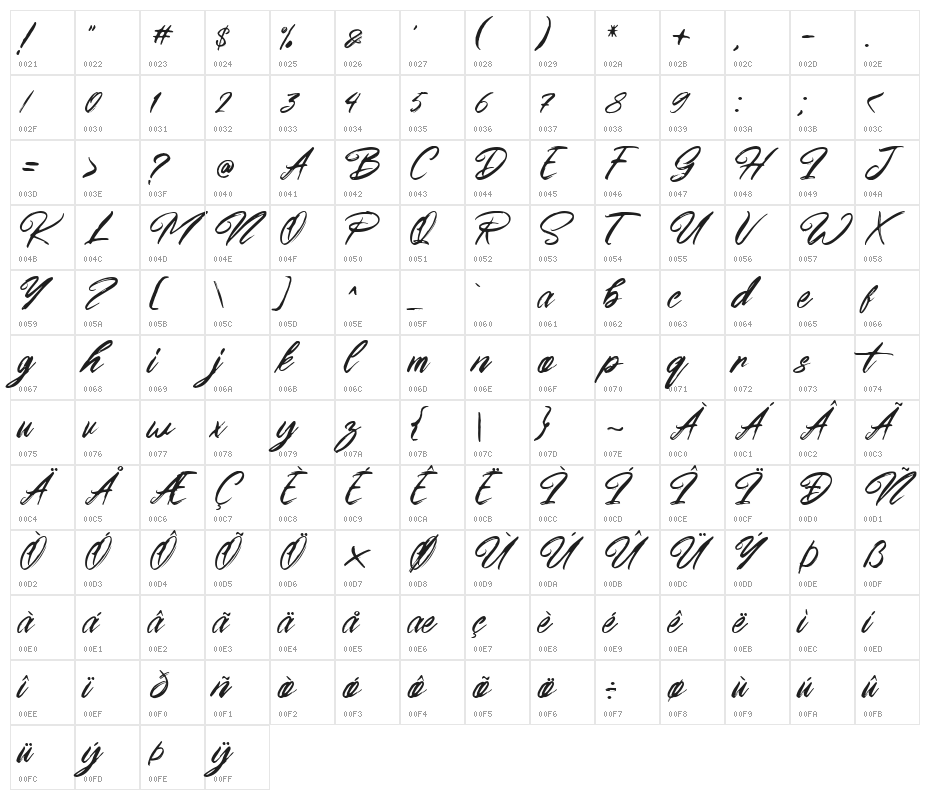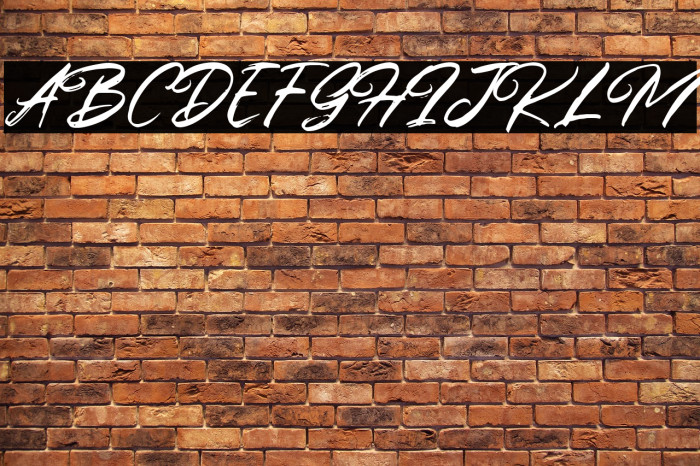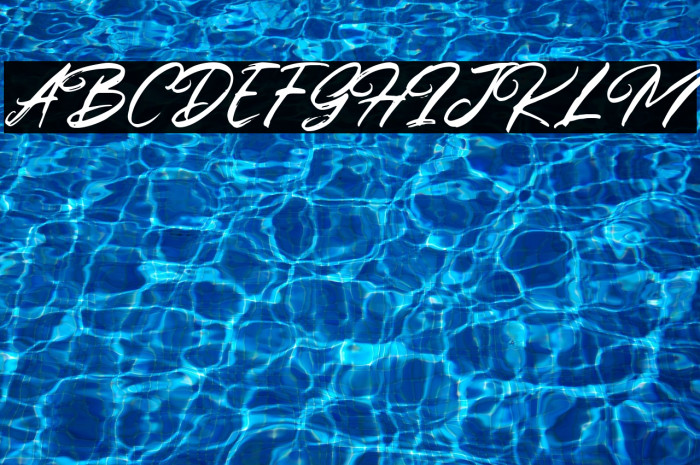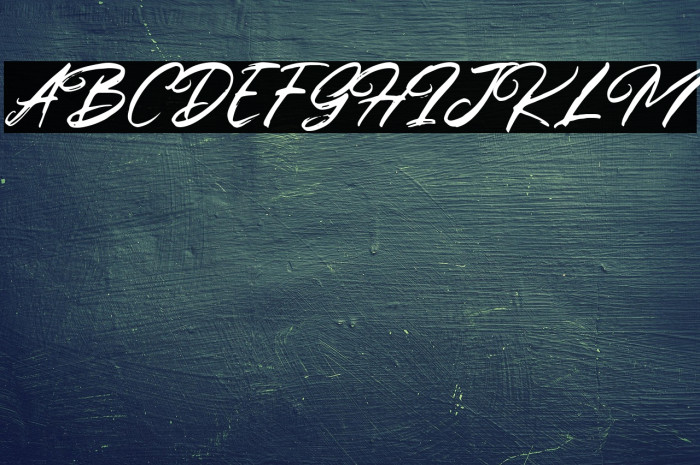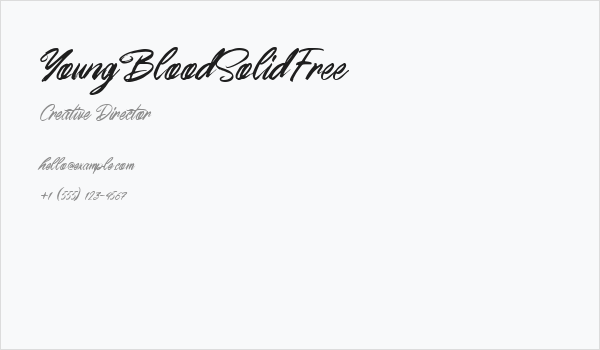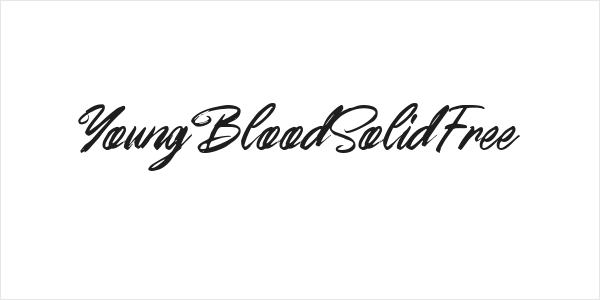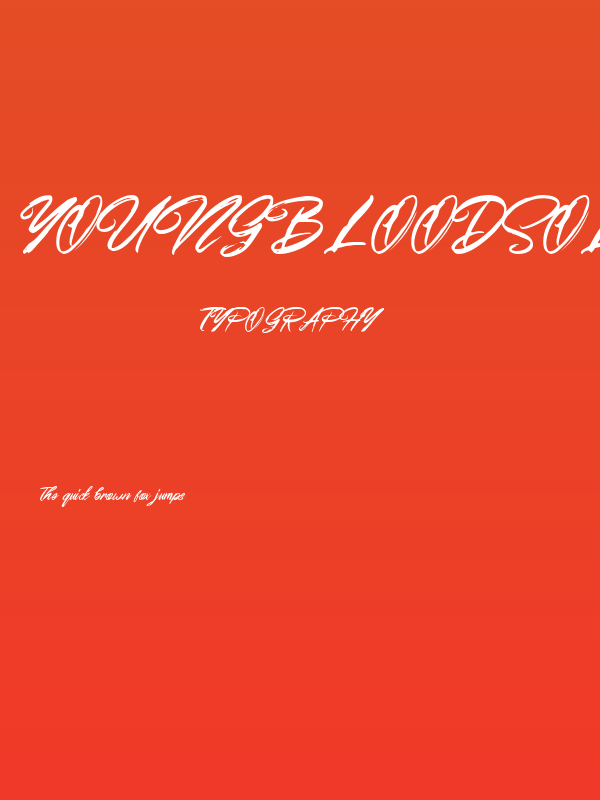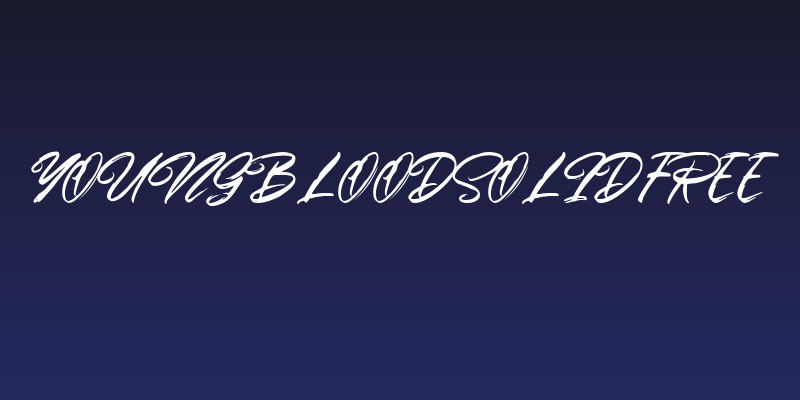
YoungBloodSolidFree Font
YoungBloodSolidFree Description
This font is a bold, expressive script with a dynamic and energetic feel. The characters are fluid and connected, showcasing a hand-drawn style that mimics natural handwriting. The uppercase letters are slightly more structured, while the lowercase letters exhibit a more casual and flowing appearance. The numbers and special characters maintain the same lively style, making them suitable for creative and artistic projects. The thick strokes and high contrast between thick and thin lines give the font a dramatic and impactful presence.
| Proposed Projects | Ideal for branding, logos, invitations, and any project requiring a personal, artistic touch. |